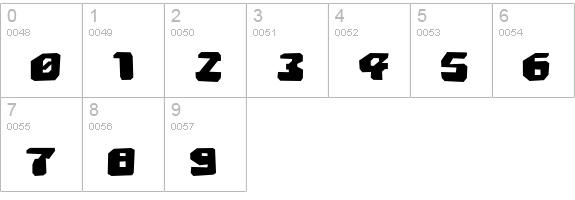
Astropolis Rough font is a unique and edgy typeface that brings a touch of urban style to your designs. With its rough texture and bold letterforms, this font exudes a sense of raw energy and creativity. Perfect for projects that require a rugged and unconventional look, Astropolis Rough is sure to make a statement. What's even better is that Astropolis Rough font is available for free download at FontsMarket.com. So you can easily add this striking font to your collection without any cost. Embrace the grungy charm of Astropolis Rough and elevate your designs to a whole new level.